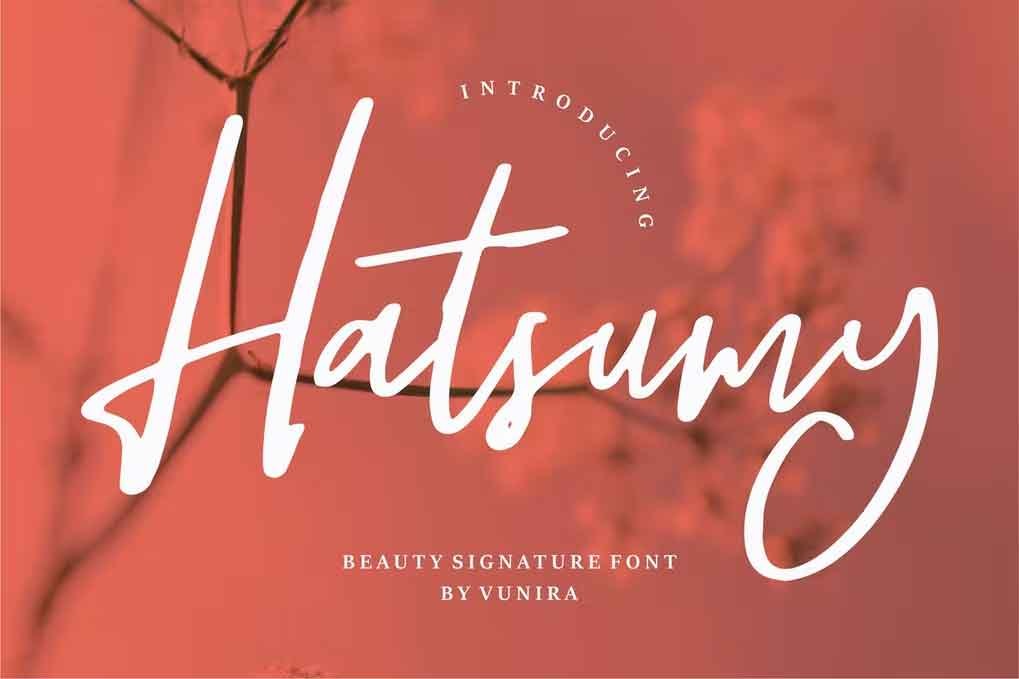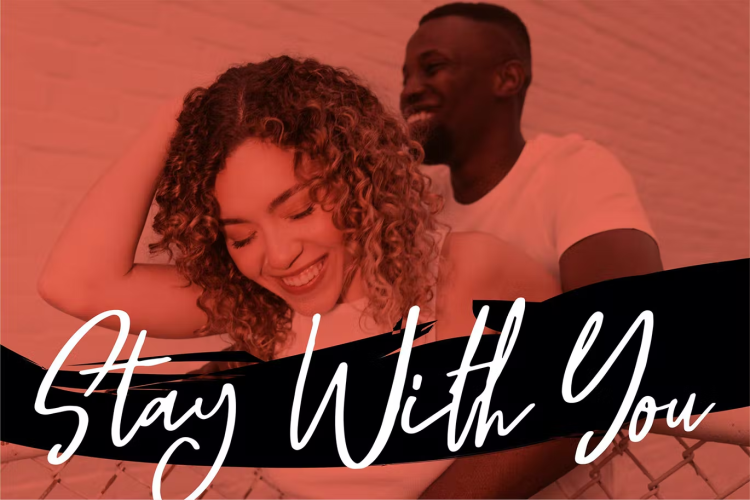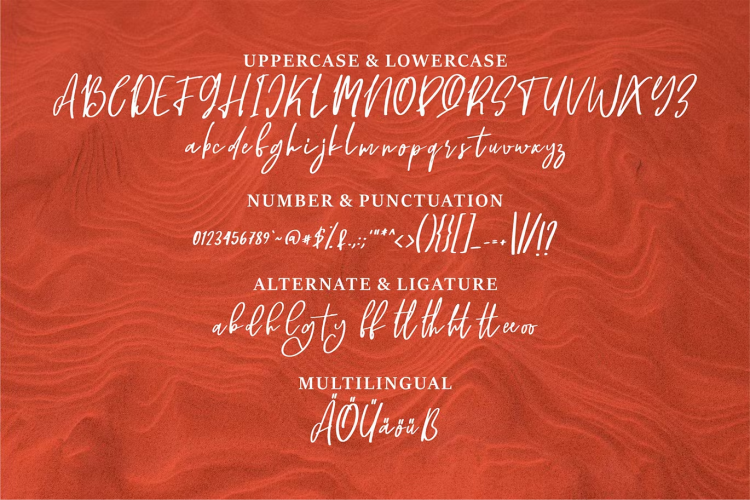
Hatsumy Beauty Signature Font
Hatsumy | Beauty Signature Font with a calligraphy style, So beautiful on invitation like greeting cards, branding materials, business cards, quotes, posters, and more!
The alternative characters were divided into several Open Type features such as Stylistic Sets, Stylistic Alternates, Contextual Alternate, SWASH and Ligature. The Open Type features can be accessed by using Open Type savvy programs such as Adobe Illustrator, Adobe InDesign, Adobe Photoshop Corel Draw X version, And Microsoft Word. And this Font has given PUA unicode (specially coded fonts). so that all the alternate characters can easily be accessed in full
Hatsumy Beauty Signature Font is a Handwriting Fonts font that brings a professional and versatile look to your projects. Hatsumy | Beauty Signature Font with a calligraphy style, So beautiful on invitation like greeting cards, branding materials, business cards, quotes, posters, and more!.